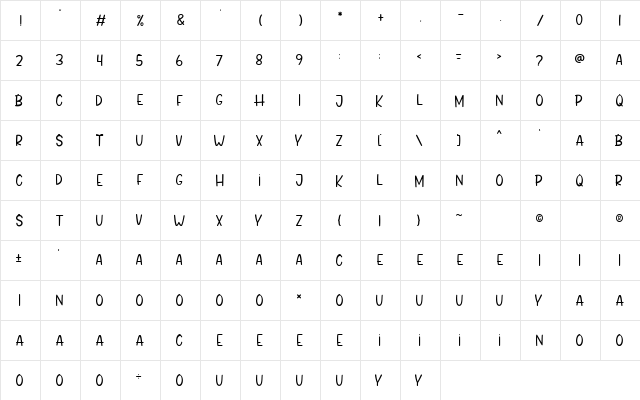
Tropical Paradise Regular
| Foundry | Nirmala Creative |
| Designer | Risma |
Design Context for Tropical Paradise Typeface
Tropical Paradise offers clean, dependable letterforms without strong stylistic allegiance, making it a practical choice for designers who need flexibility.